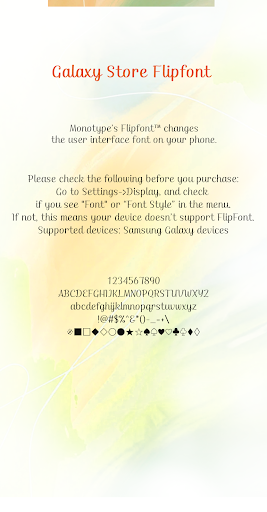
Fine Cantabile
It is a handwriting style font that feels like a skillful writing.
You can see the change in thickness according to the movement of the stroke, and it shows a stable posture with smooth movement.
I feel the beauty that continues softly like singing.